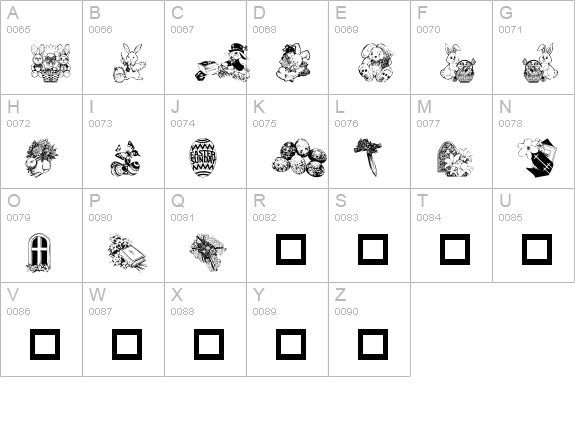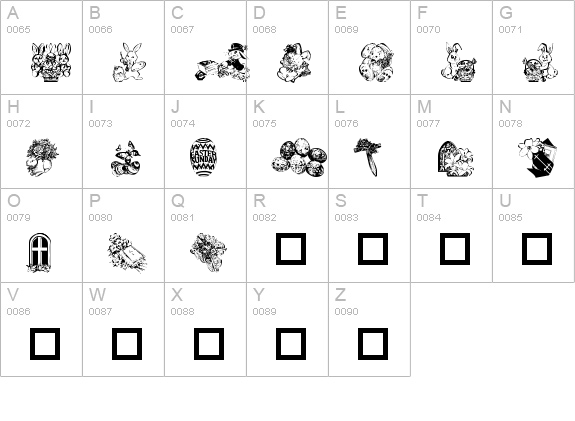
Destiny's Easter Dings Font Details
Destiny's Easter Dings font is a whimsical and charming typeface perfect for adding a touch of fun to your designs. This delightful font features a collection of Easter-themed doodles and icons, including eggs, bunnies, and flowers, making it ideal for seasonal projects, greeting cards, invitations, and more. Best of all, Destiny's Easter Dings font is completely free to download at FontsMarket.com. This means you can easily access this adorable font and use it in your personal and commercial projects without any cost. Whether you're creating Easter cards, designing social media graphics, or crafting festive decorations, Destiny's Easter Dings font is sure to bring a playful and festive vibe to your work. Download it today and add a touch of Easter magic to your designs!